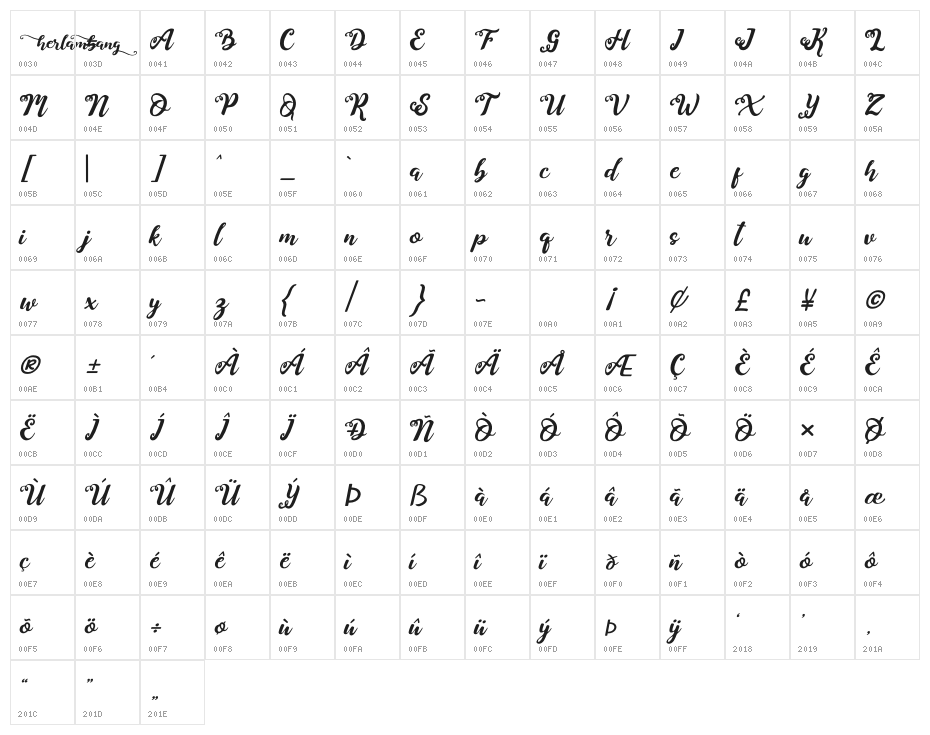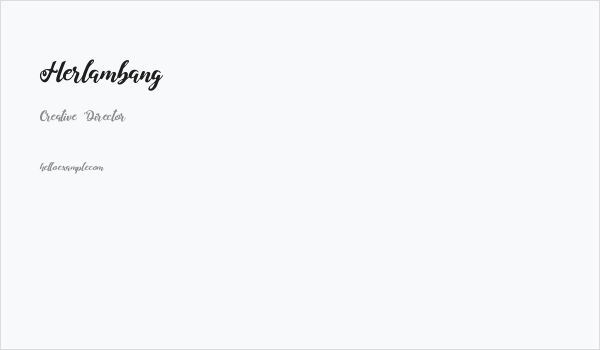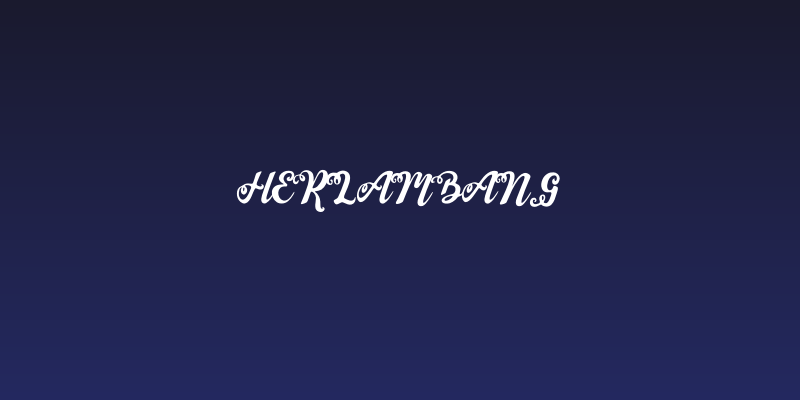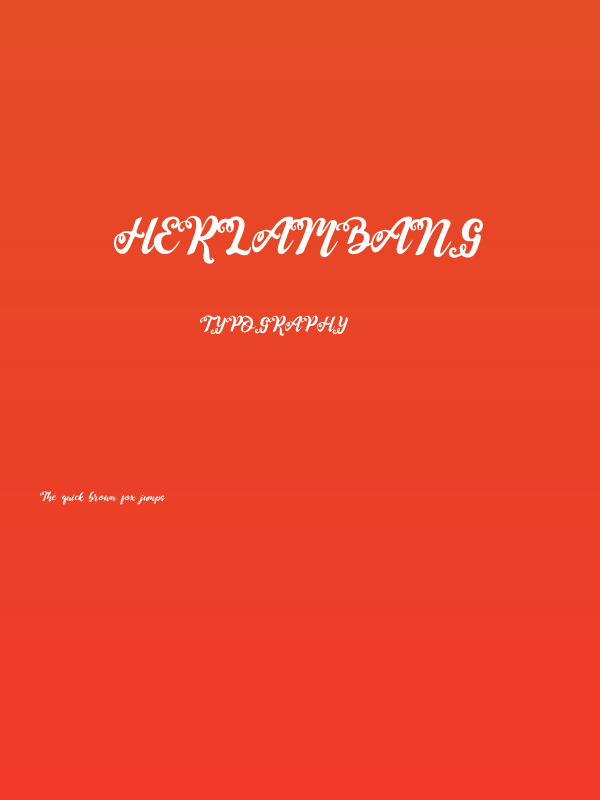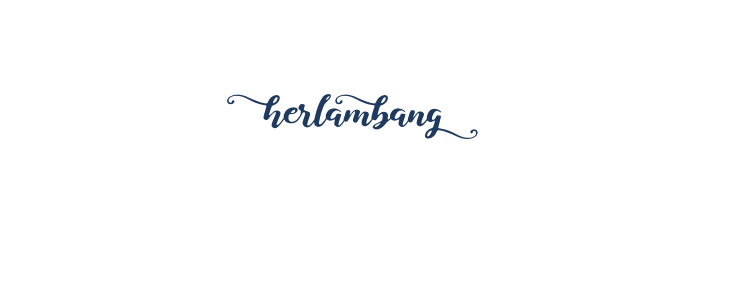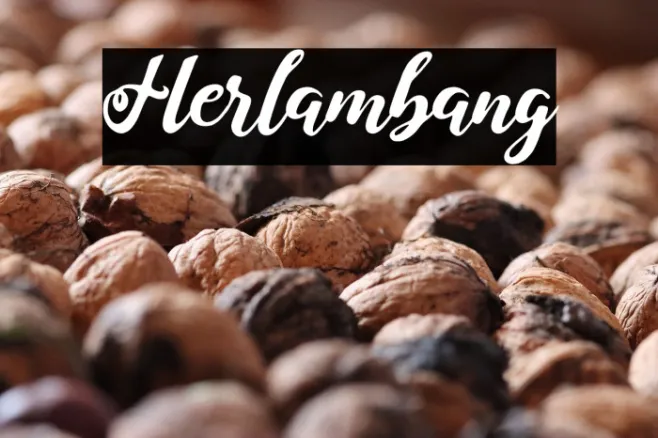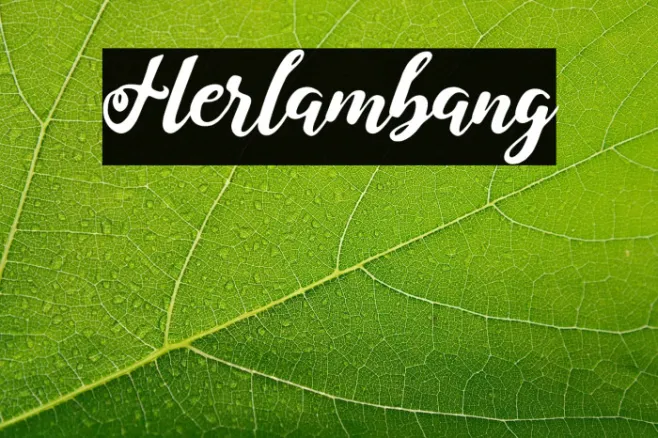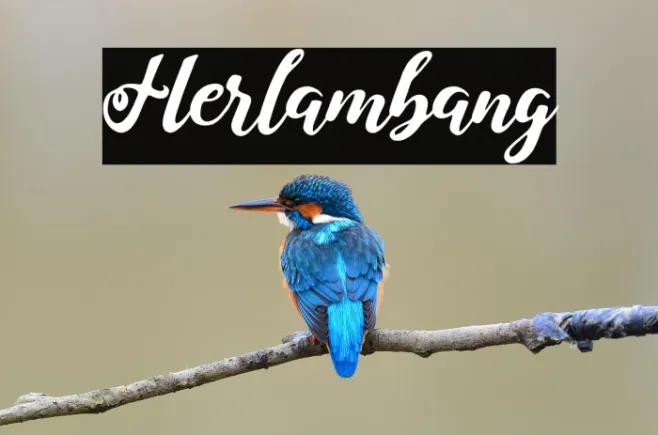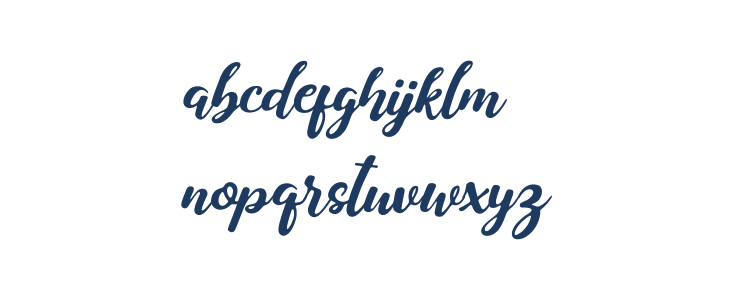
Herlambang Font
Herlambang Description
This font features a decorative and elegant script style with intricate swirls and flourishes that add a touch of sophistication. The uppercase letters are particularly ornate, with loops and curls that give them a unique, artistic flair. The lowercase letters maintain a smooth, flowing appearance, making them easy to read while still retaining the decorative elements. The numbers and special characters are designed to match the overall aesthetic, ensuring a cohesive look across all text. This font is perfect for projects that require a touch of elegance and creativity, such as invitations, branding, and artistic designs.
| Use Case | Logos, Invitations, Artistic designs |
| Proposed Projects | Ideal for wedding invitations, branding, artistic designs, and elegant stationery. |